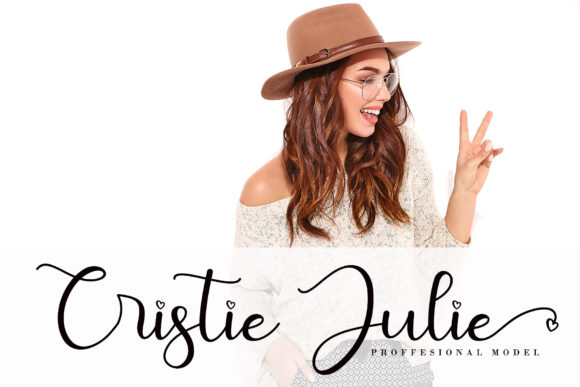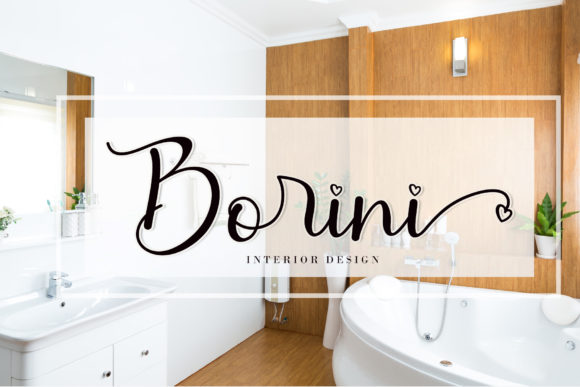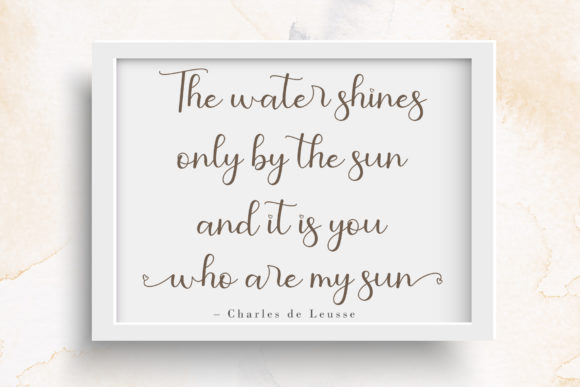
Introduction to Janiella Font
Have you ever found yourself staring at a blank page, eager to bring your creative vision to life? As designers, we’ve all been there, searching for the perfect design resource to elevate our projects. One such treasure is the Janiella Font, a stunning calligraphy font that has captured the hearts of many creatives.
With its romantic and sweet aesthetic, Janiella Font is a game-changer for any design project. Whether you’re working on a wedding invitation, a birthday card, or a branding campaign, this high-quality font is sure to impress. Its beautiful selection of ligatures and swashes adds a touch of elegance, making it a valuable asset to any designer’s library.
Key Features of Janiella Font
- Comes with a transparent background, allowing for seamless integration
- Features a unique, modern design with elegant lines and curves
- Includes a comprehensive character set, covering a wide range of languages
- Resolution-independent, ensuring crisp and clear text at any size
Honest Review: Janiella Font
As a designer, I’m always on the lookout for high-quality design resources to elevate my creative projects. Recently, I stumbled upon the Janiella Font, and I’m excited to share my thoughts on this lovely typeface.
- ✨ Unique and elegant design style that adds a touch of sophistication to any project
- ✨ High-quality glyphs and letterforms that ensure a crisp and clean look
- ✨ Transparent background, making it easy to overlay on images or videos
- ⚠️ Limited font weights and styles available for download
- ⚠️ Not suitable for large-scale text or headlines due to its delicate design
Overall, I’m impressed with the Janiella Font’s elegant design and high-quality construction. While it may have some limitations, it’s a great choice for designers looking for a unique and sophisticated typeface for smaller-scale text or creative projects. With a free download available, it’s definitely worth checking out.
Tips for Getting the Most Out of Janiella Font
One of the key benefits of using Janiella Font is its transparent background, which makes it easy to use on any design project. To get the most out of it, try using it in combination with other design elements, such as images and shapes, to create a visually appealing design. You can also experiment with different font sizes and styles to add depth and interest to your design.
Janiella Font is a versatile design resource that can be used in a variety of creative projects, including business cards, brochures, and social media graphics. Its high quality design and transparent background make it a great choice for designers who want to create professional-looking designs quickly and easily.